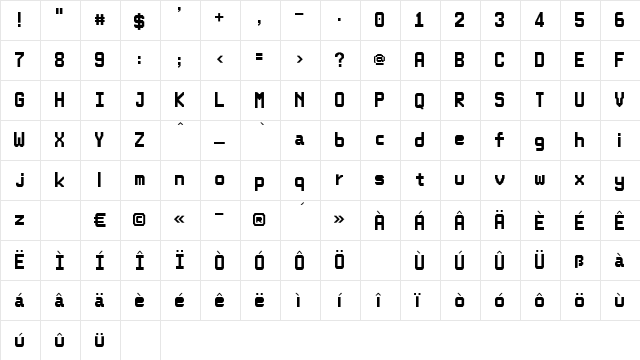
1st Sortie Regular
Design Context for 1st Sortie Typeface
1st Sortie is a composed and adaptable typeface that performs quietly and consistently across a wide range of design contexts.